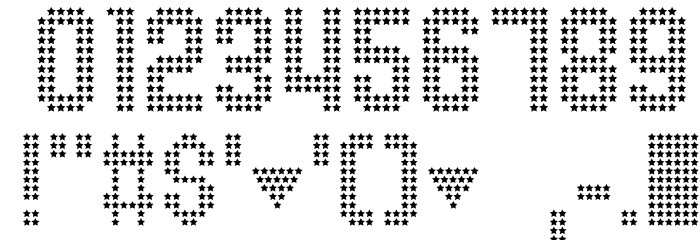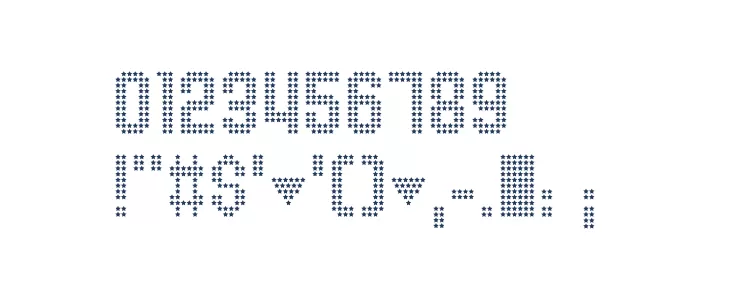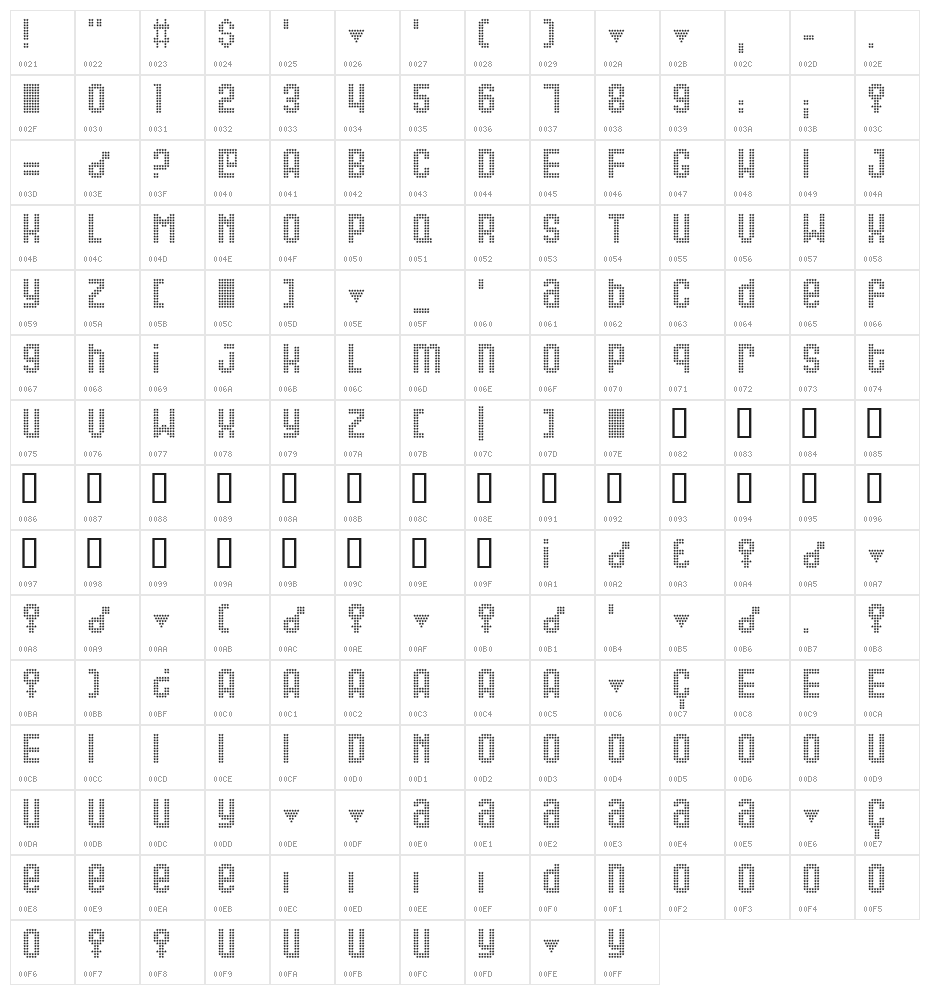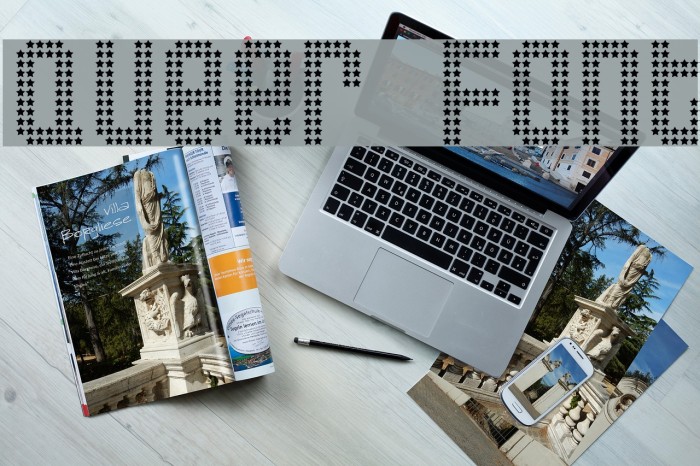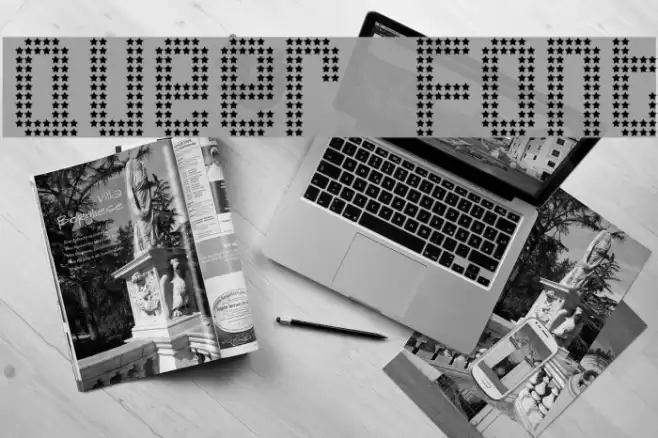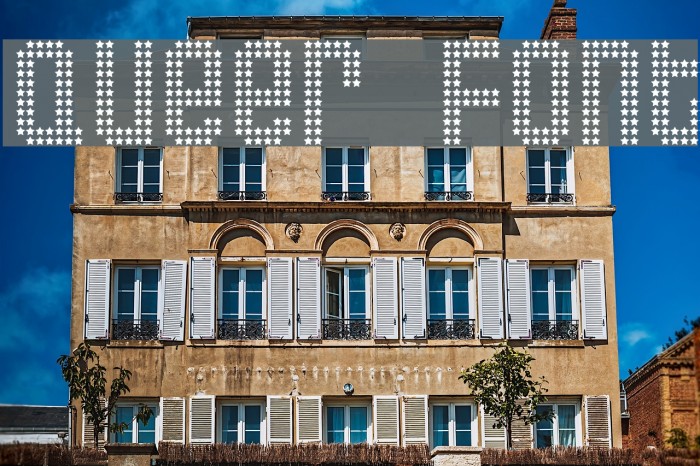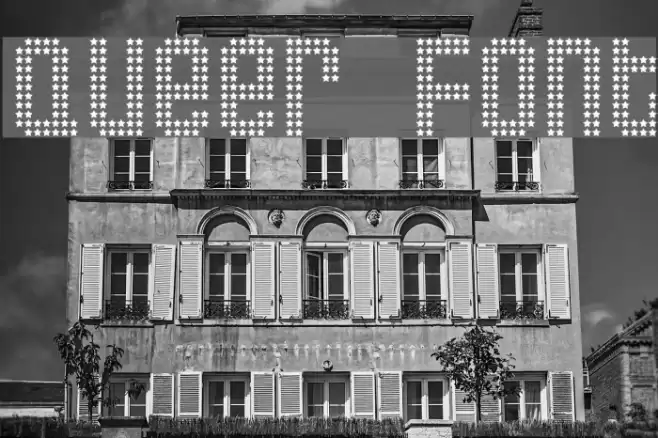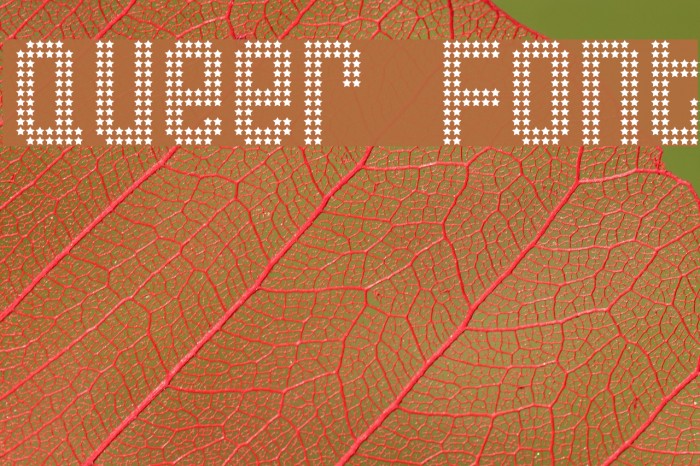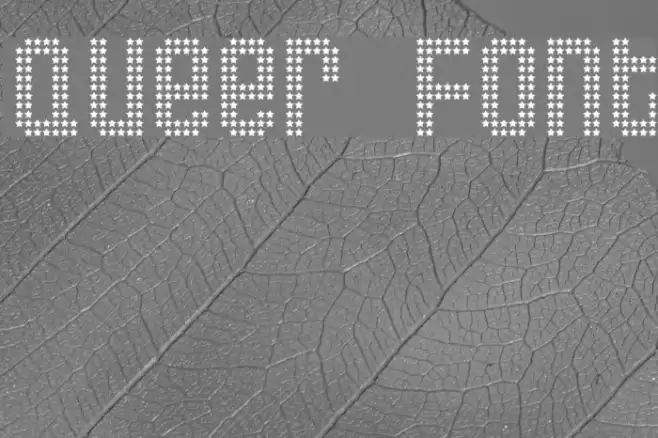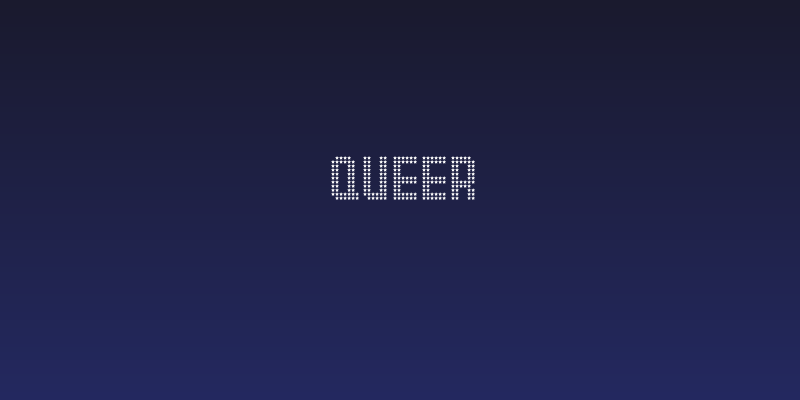
Queer Font
Queer Description
This font is a unique and playful design composed entirely of small star shapes forming each character. The letters and numbers are constructed in a grid-like pattern, giving them a pixelated appearance. This decorative style is eye-catching and whimsical, making it ideal for creative projects. The uniformity of the stars provides a consistent texture across all characters, while the geometric arrangement ensures readability despite its unconventional style. The font includes both uppercase and lowercase letters, numbers, and a selection of special characters, all maintaining the star motif. Its distinct appearance makes it suitable for projects that require a fun and engaging visual element.
| Proposed Projects | Ideal for party invitations, children's book covers, festive banners, and creative branding. |